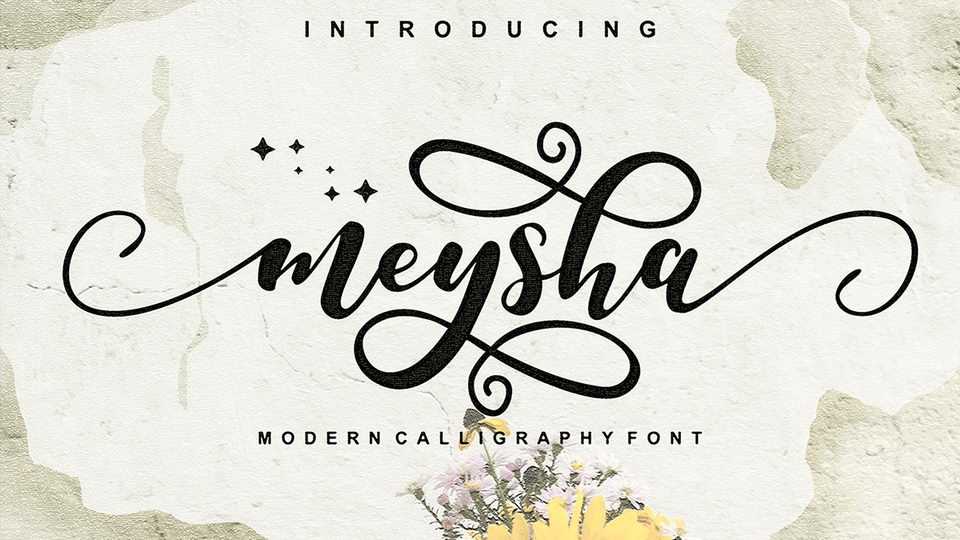
Download Meysha font, a lovely handwritten typeface with an incredibly friendly feel. Meysha features gorgeous swashes and ligatures that make this script incredibly versatile.
Designer: Nun Creatype